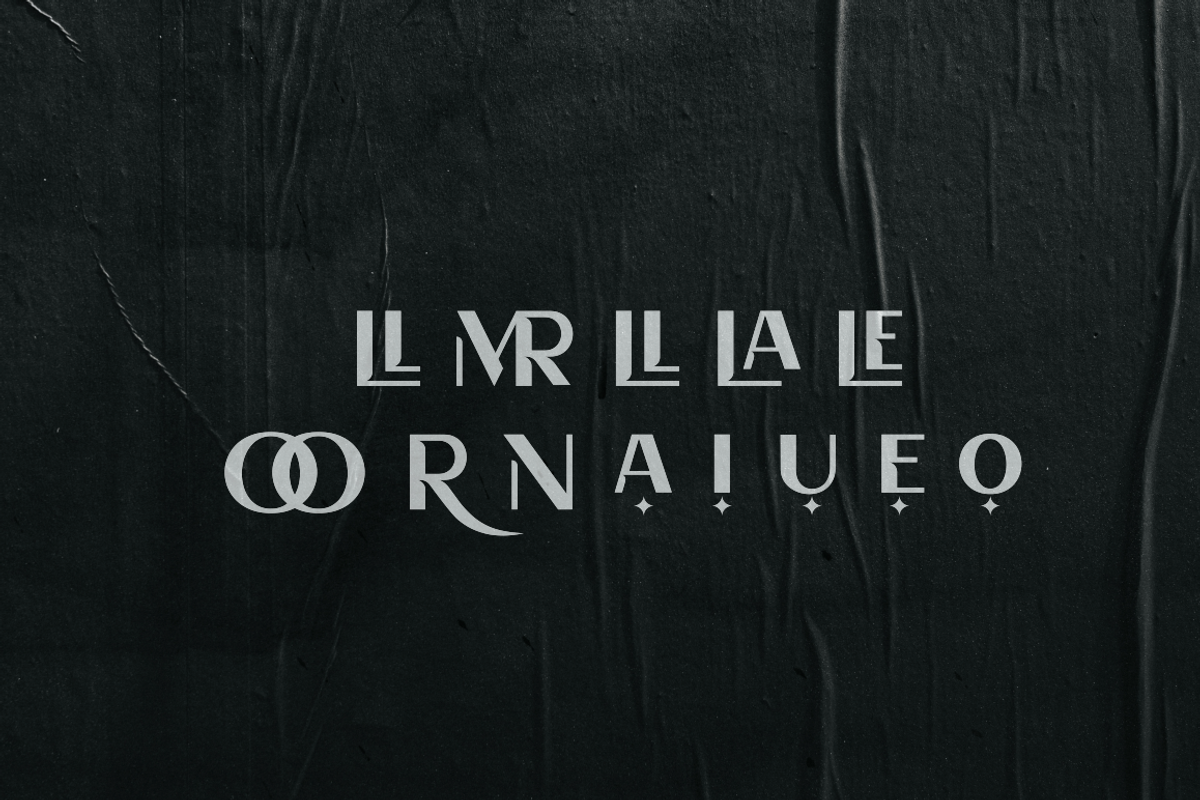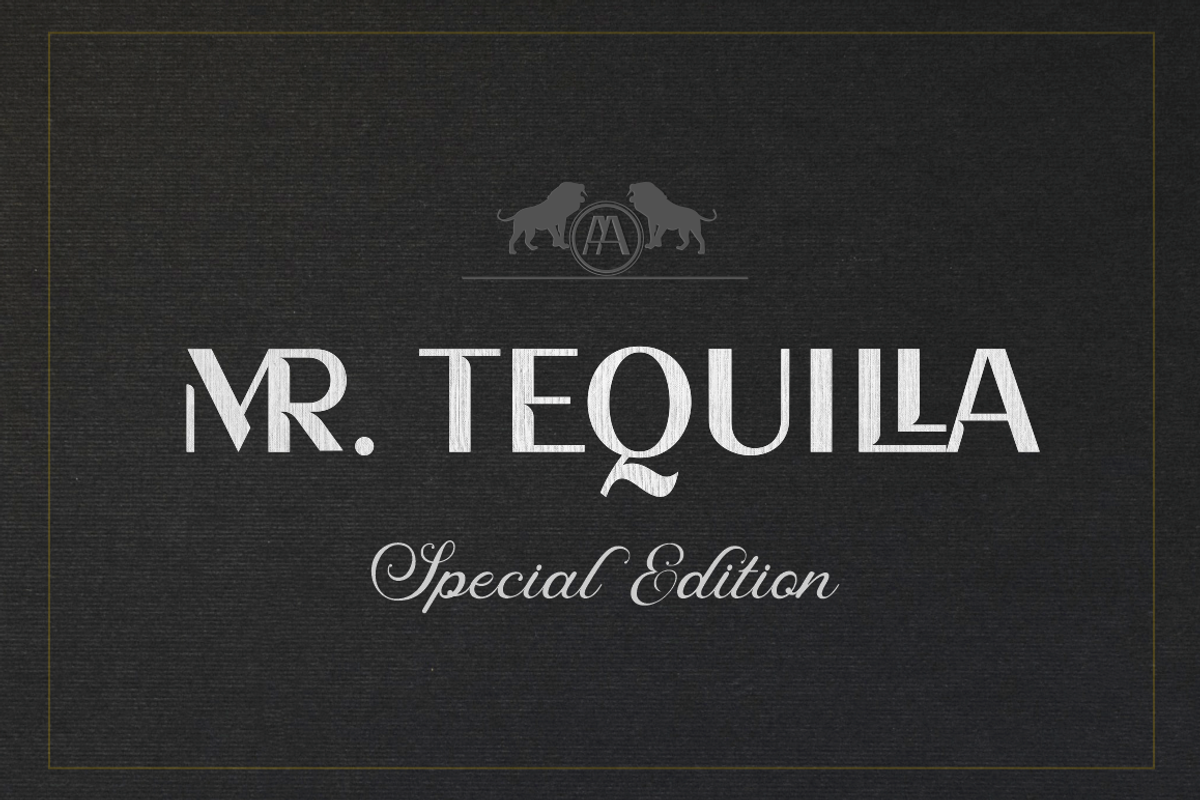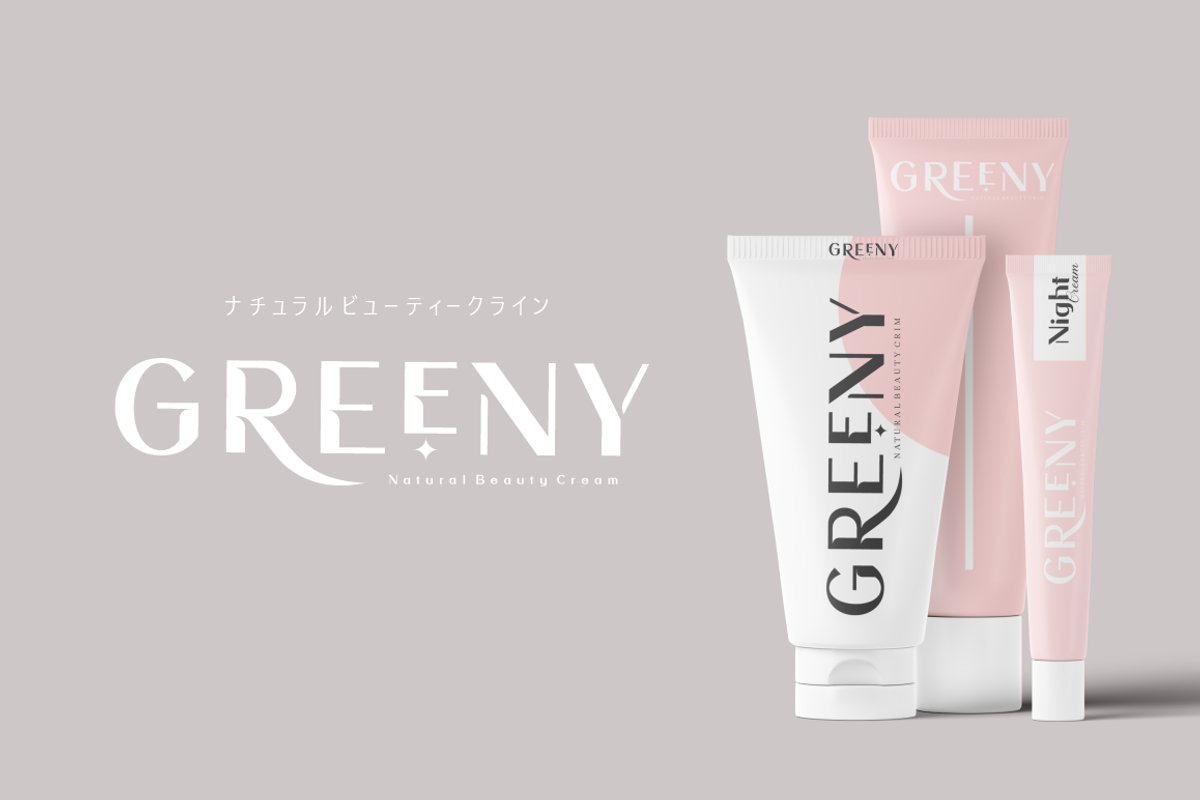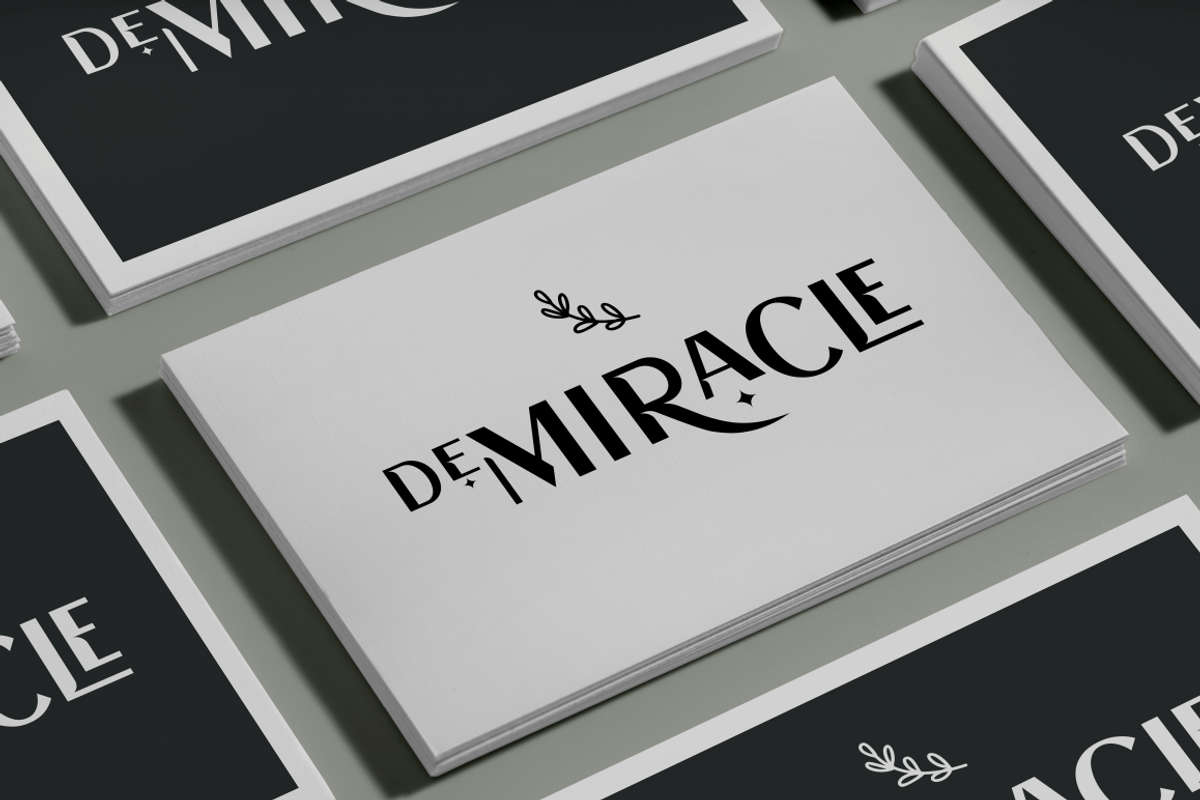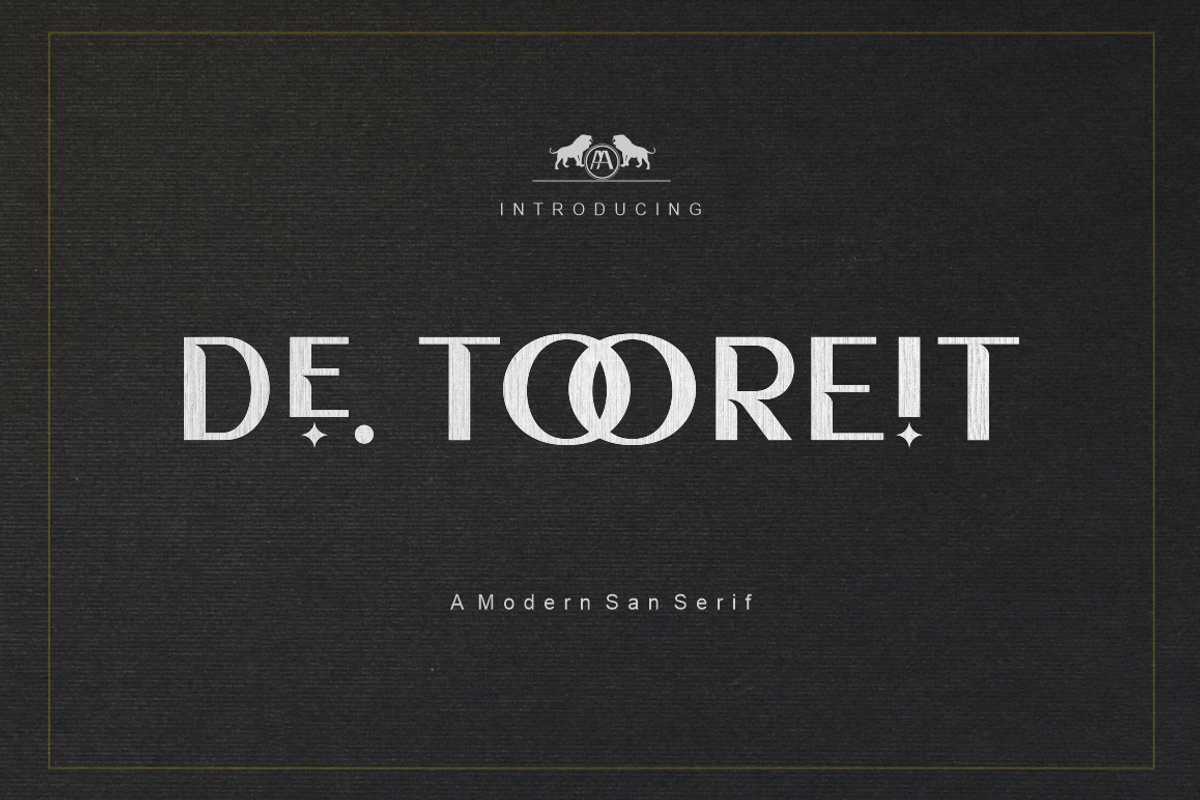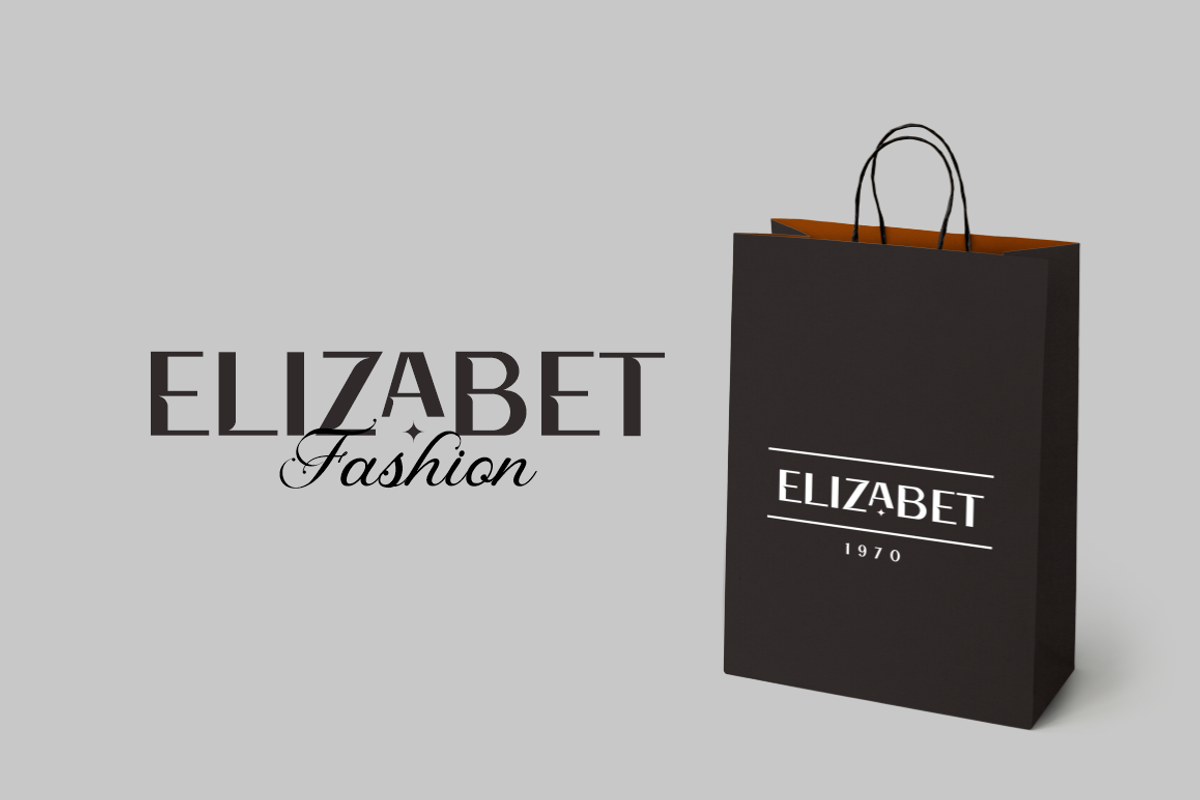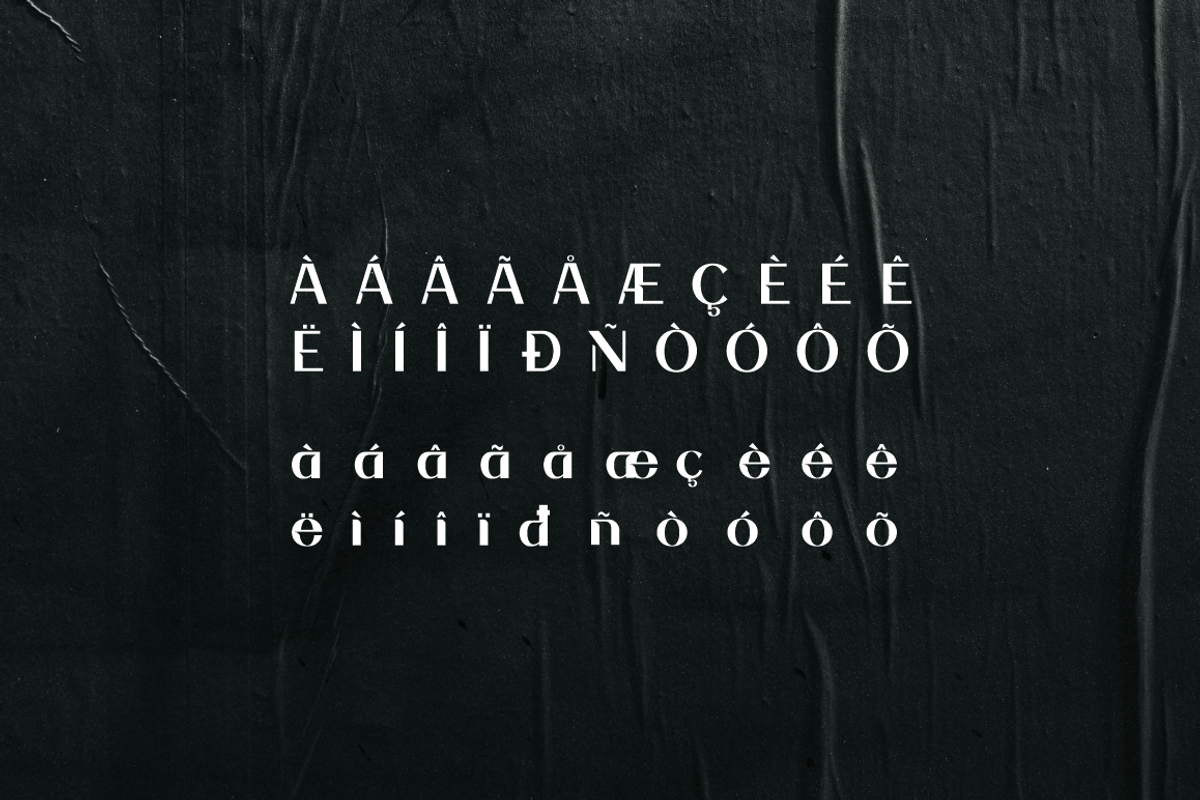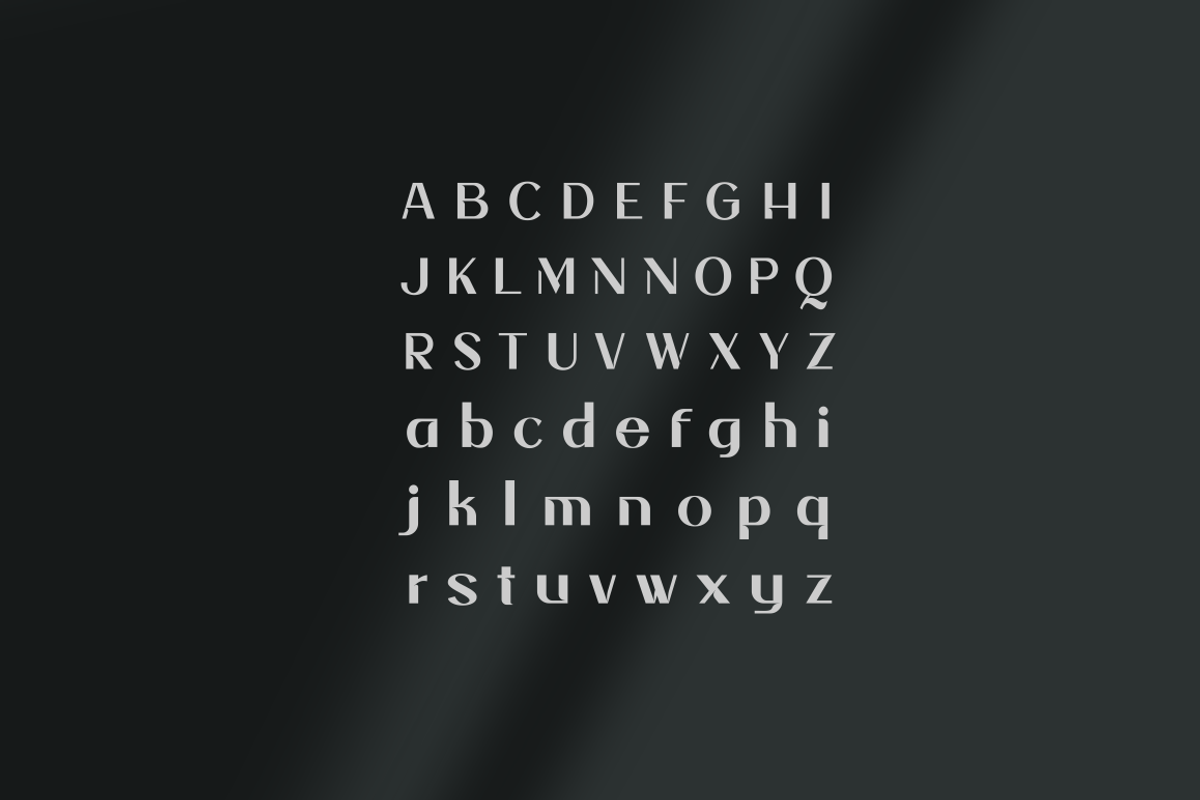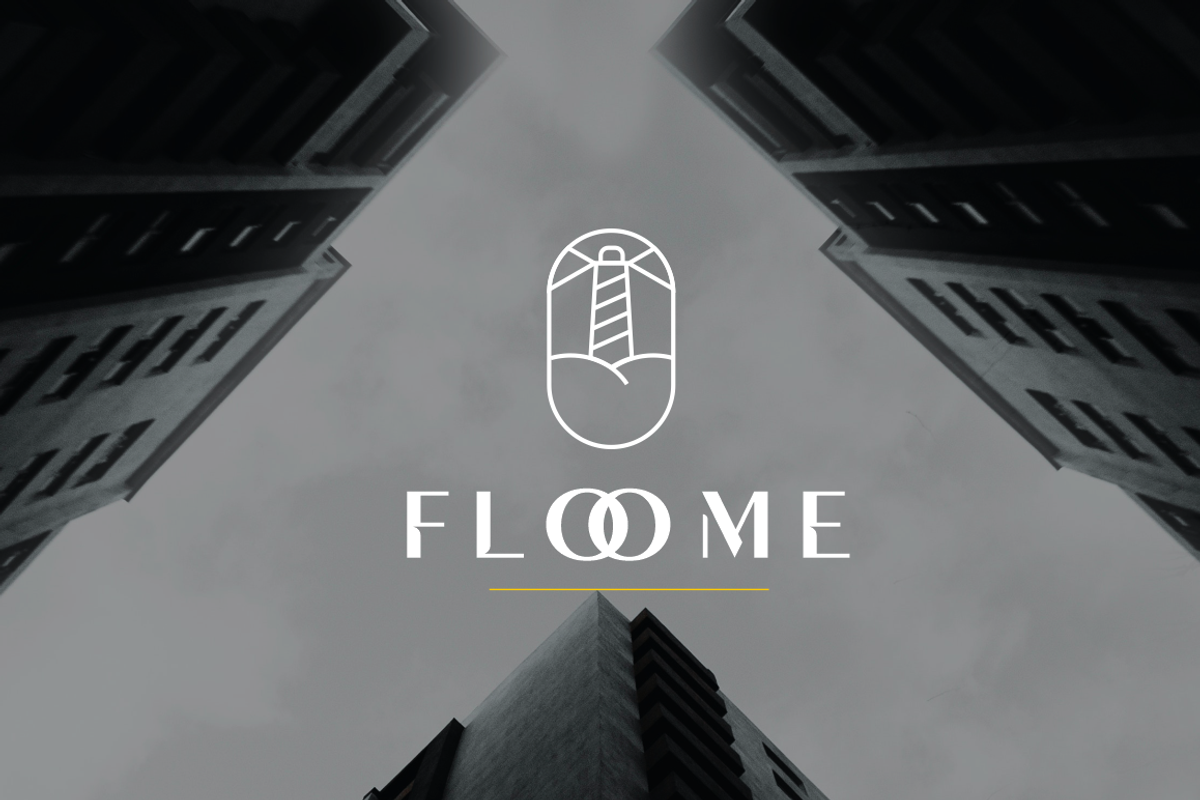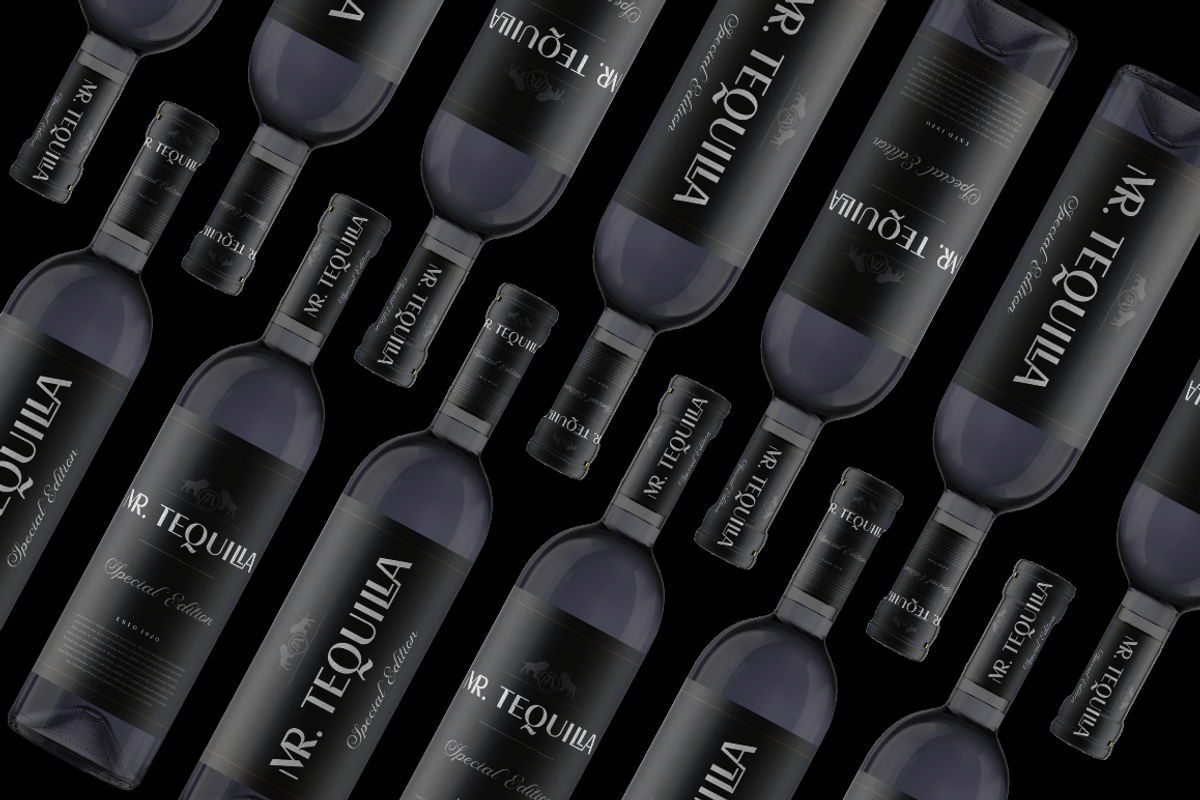
DE TOOREIT
DE TOOREIT is a San Serif font family with a modern style, cool look, style, Ligatures and multilingual support.
The font looks cropped in a beautiful shadow style, making it the perfect typeface for a modern, sophisticated look. This font is perfect for branding and design, magazine design, logo design, headlines, posters, packaging, cards or wedding invitations.
DE TOOREIT includes two styles (Standard / Italic).
- Characters with accents
- Supports Multiple Languages